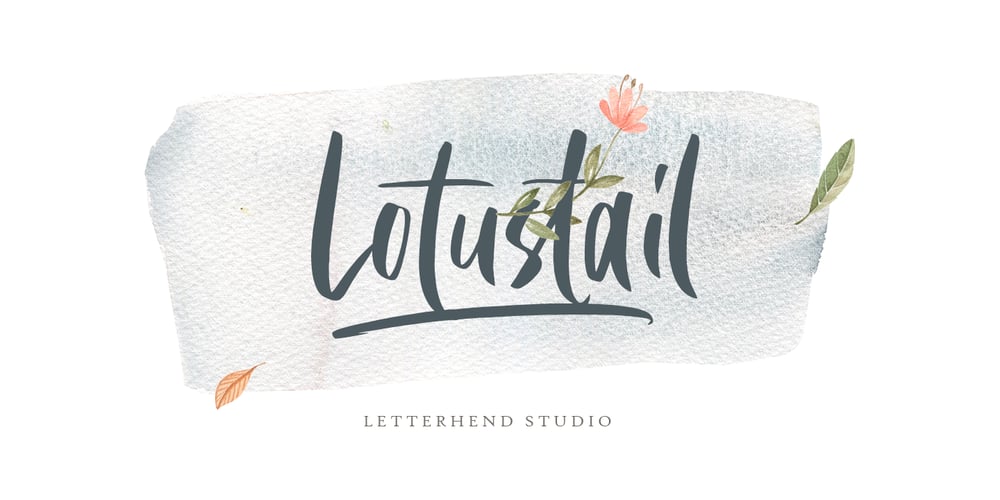
Lotustail Font Family was designed by Hendry Juanda, Sarid Ezra and published by Letterhend. Lotustail contains 1 styles and family package options. Lotustail is a handwritten font that includes many OpenType features. It also includes alternates and ligatures. This font also comes with numbers, symbols, punctuation and multi-lingual characters. It is also PUA Encoded.